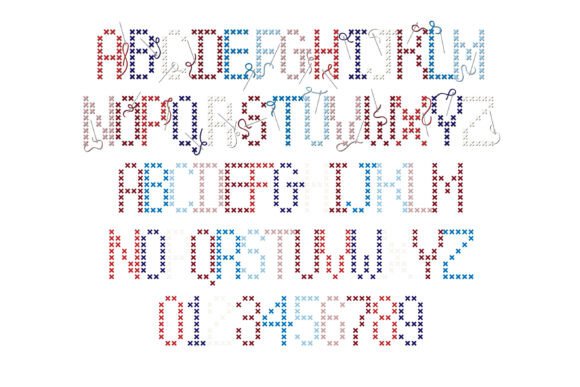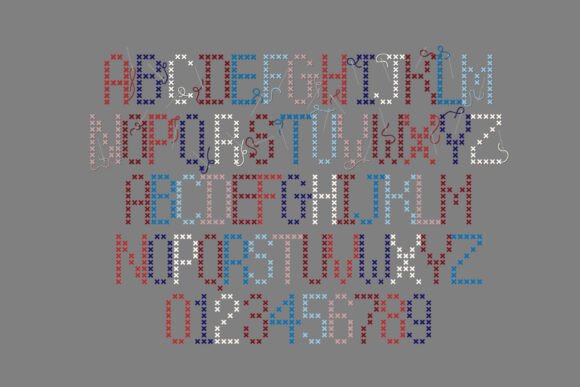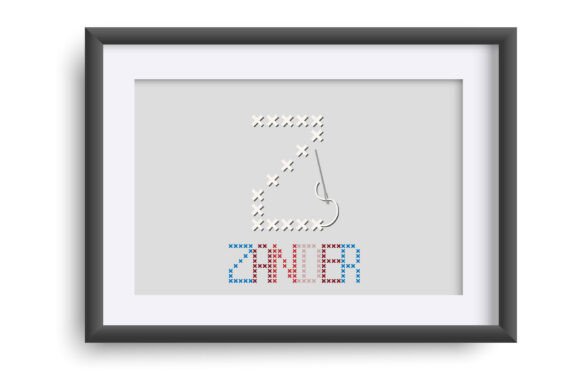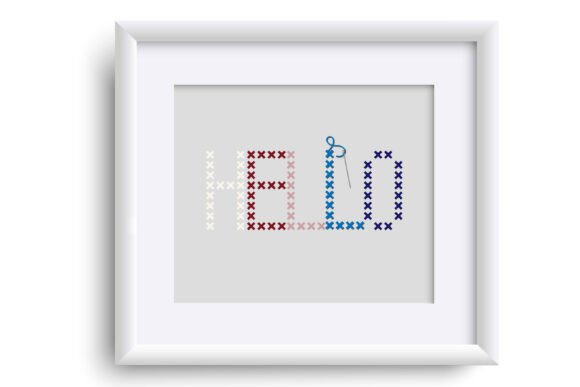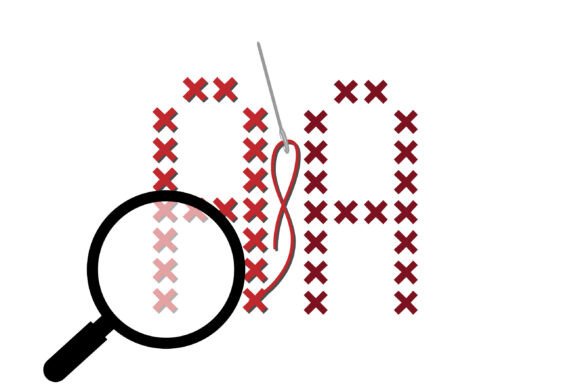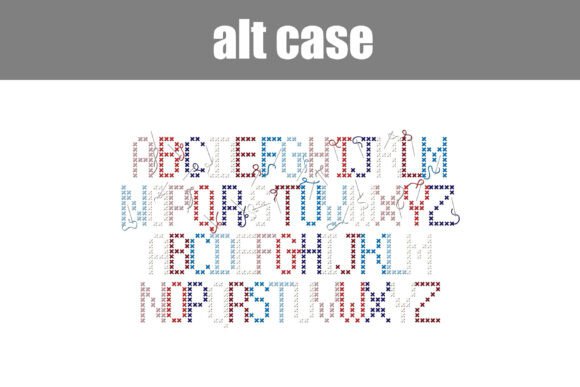
Introduction to Patriotic Cross Stitch Font
Patriotic Cross Stitch – Full-Color SVG Craft Font Celebrate your love for heritage and handmade artistry with Patriotic Cross Stitch, a gorgeous full-color OpenType-SVG font that replicates traditional needlepoint down to the very last thread.
Each character is intricately constructed from distinct, pixel-perfect “X” stitches shaded in a classic color scheme of deep red, navy blue, soft sky blue, dusty pink, and crisp white Complete with playful graphic details—like silver sewing needles and loose embroidery floss trailing off the curves—this font infuses digital text with real texture.